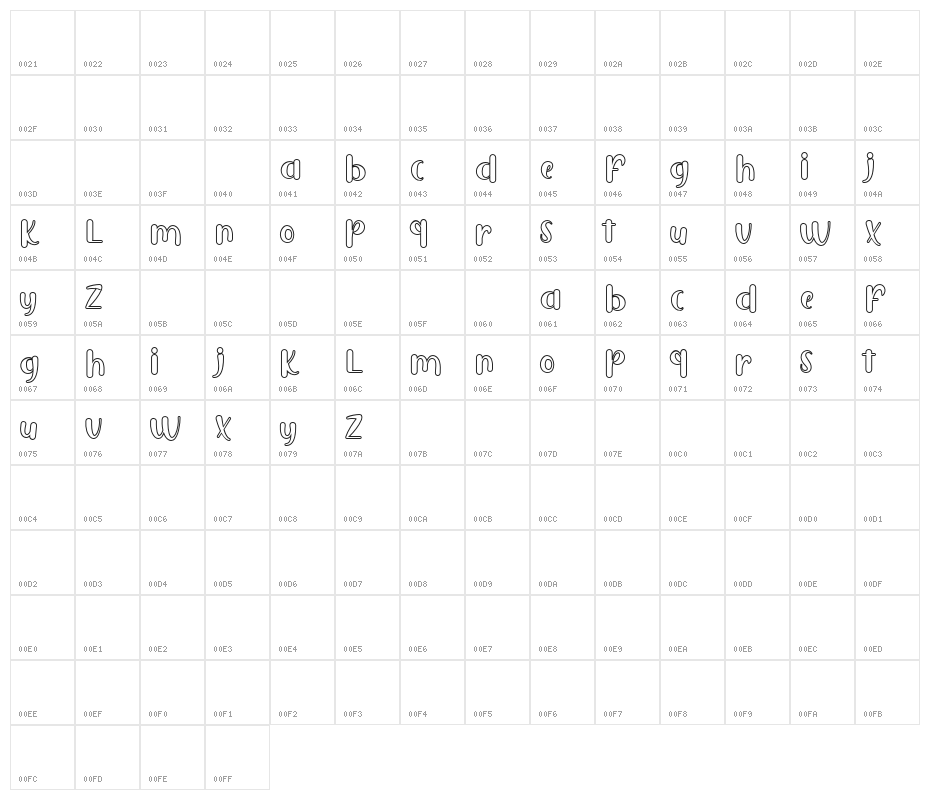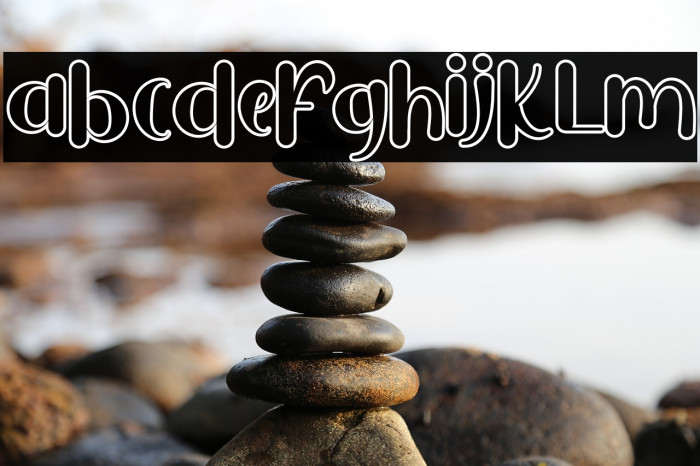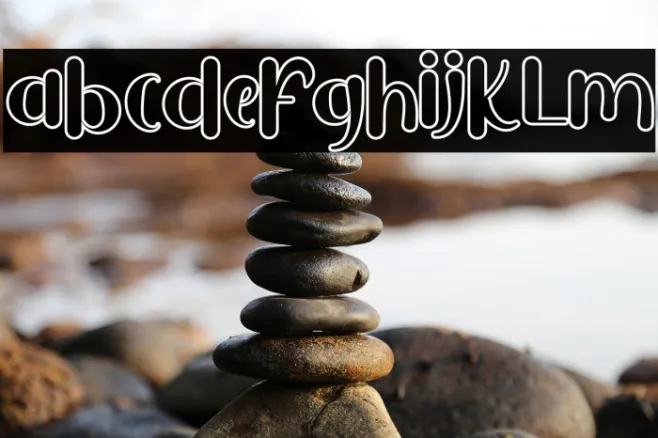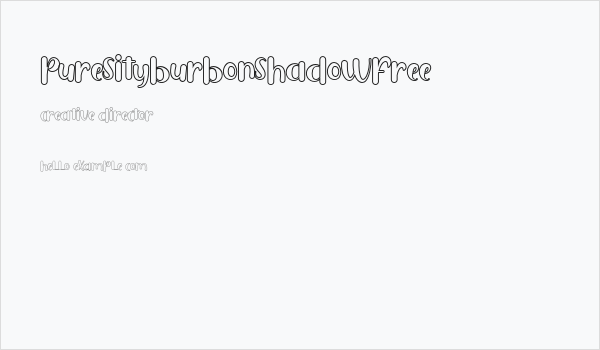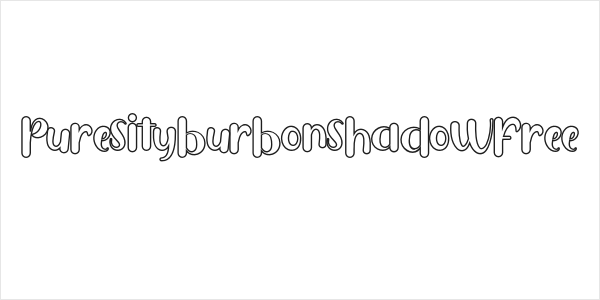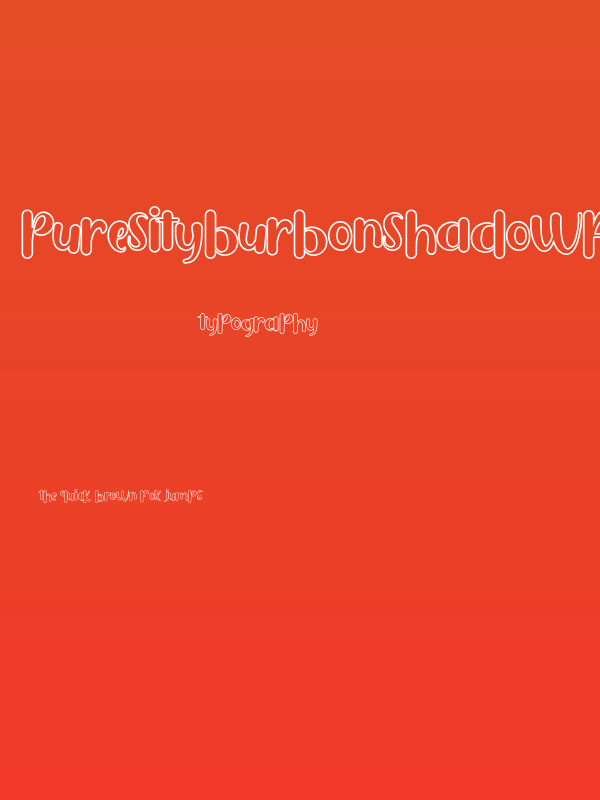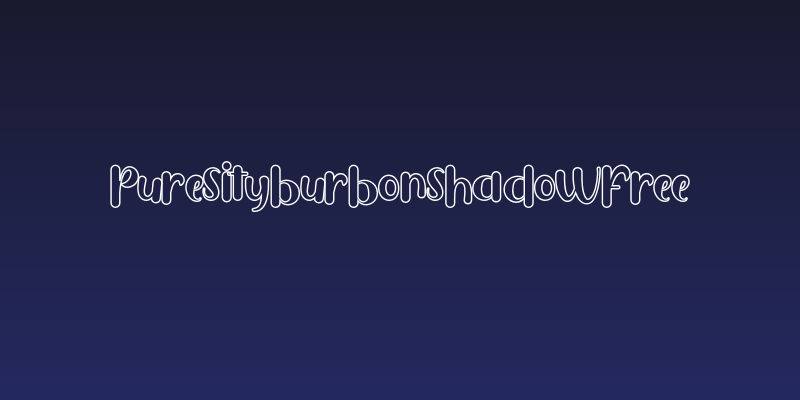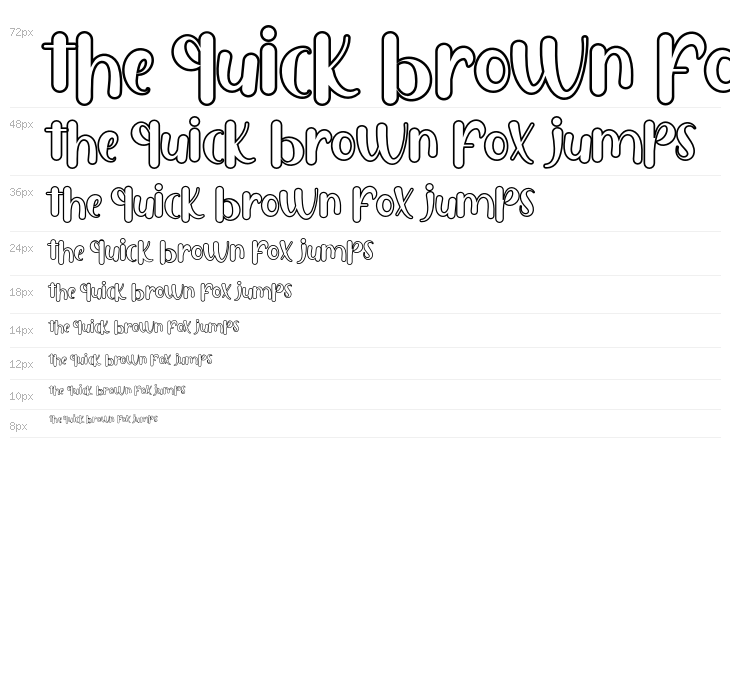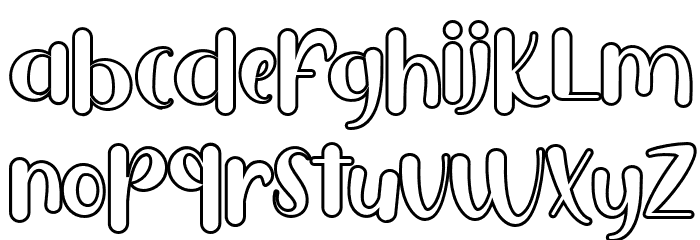
PuresityBurbonShadowFREE Font
PuresityBurbonShadowFREE Description
This font features a playful and bold design with a shadow effect that adds depth and dimension to each character. The letters are rounded and have a consistent thickness, creating a harmonious and cohesive look. The uppercase and lowercase letters maintain a uniform style, with a slight whimsical touch that makes it stand out. The font's outline style enhances its decorative appeal, making it suitable for eye-catching designs. Its unique character shapes and shadowing make it ideal for projects that require a fun and engaging visual element.
| Proposed Projects | Ideal for children's book covers, playful branding, posters, and creative invitations. |